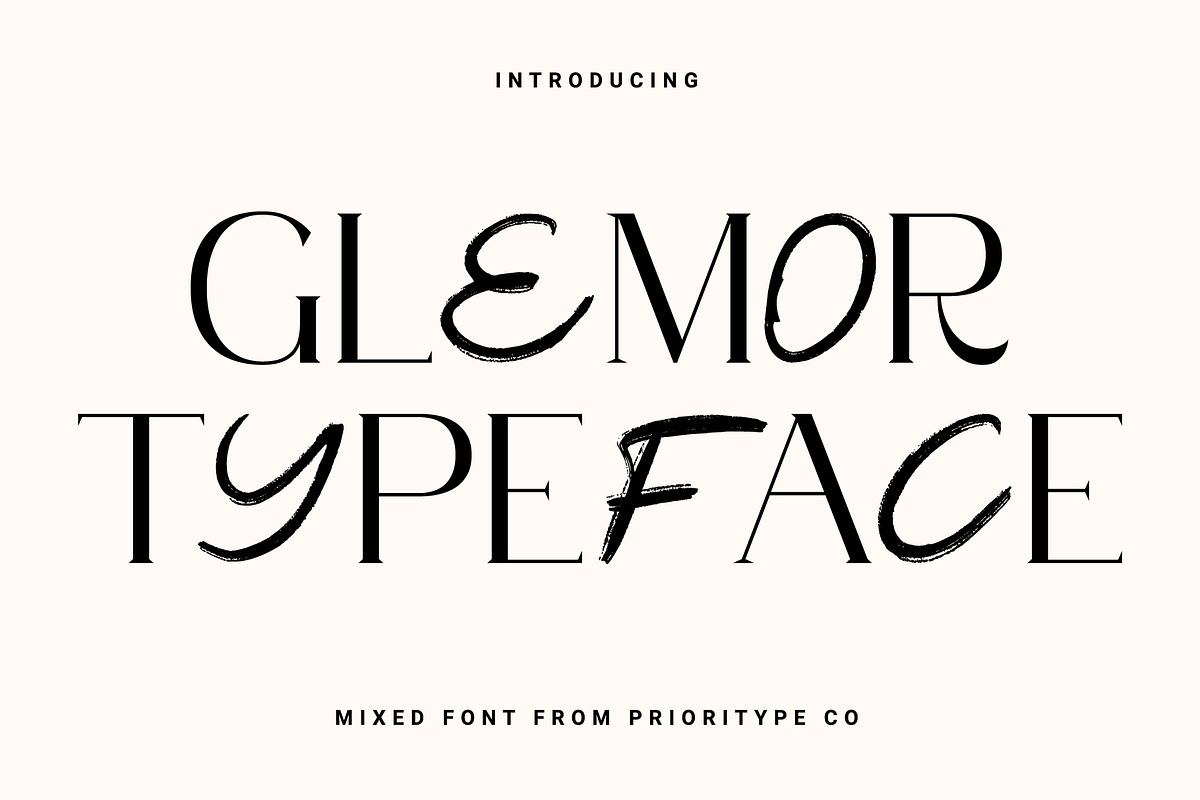
Glemor Typeface Free Download is a sophisticated serif font that blends timeless elegance with a bold, modern edge. Designed for high-impact visuals, Glemor is perfect for luxury branding, fashion editorials, logo designs, magazine titles, and upscale packaging.
With its refined curves, sharp serifs, and balanced contrast, Glemor adds a premium feel to any creative project. The font includes uppercase and lowercase letters, punctuation, multilingual support, and works flawlessly on both Mac and Windows platforms.